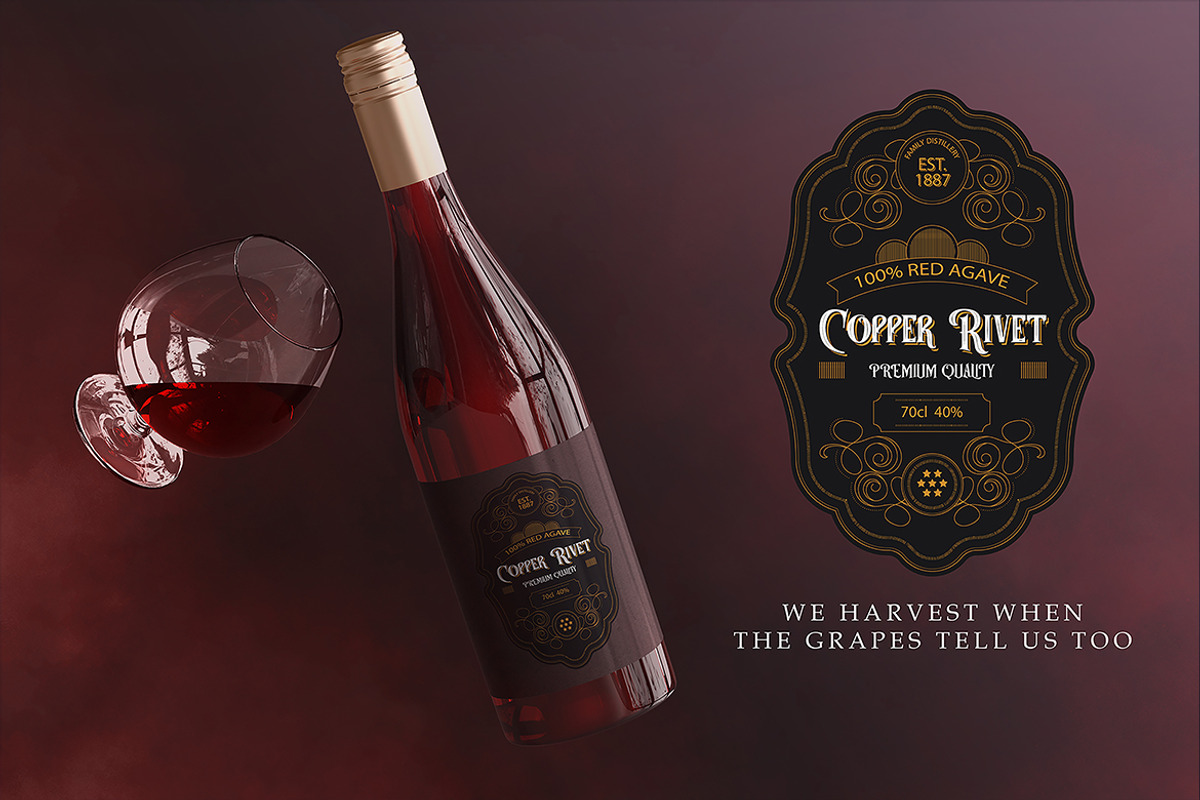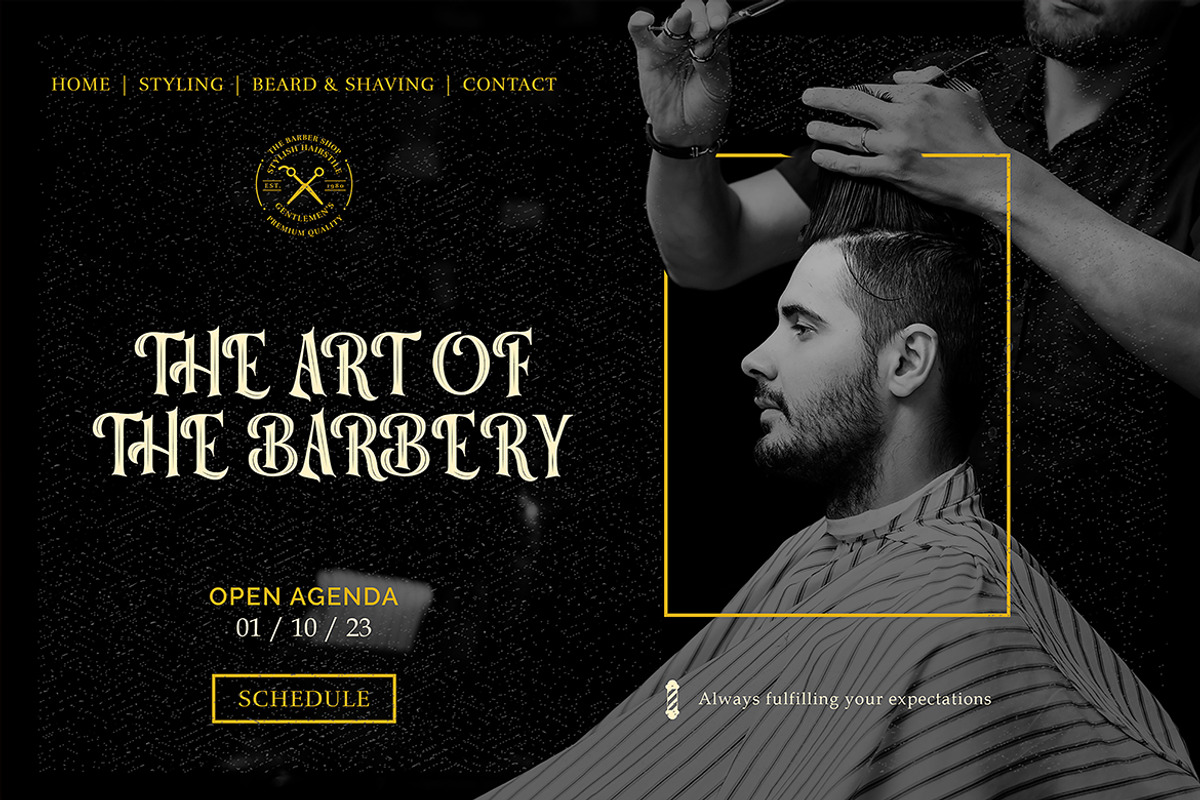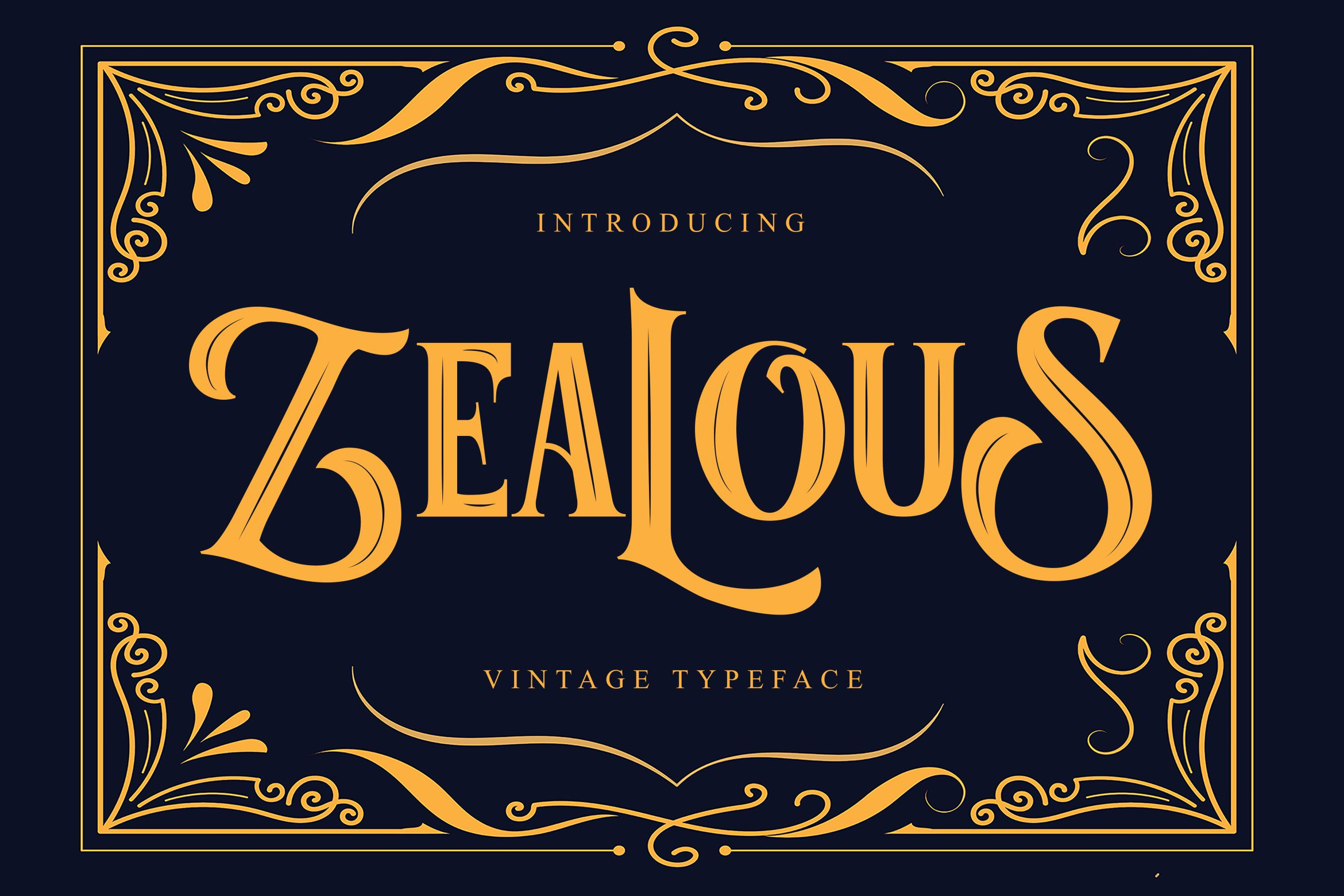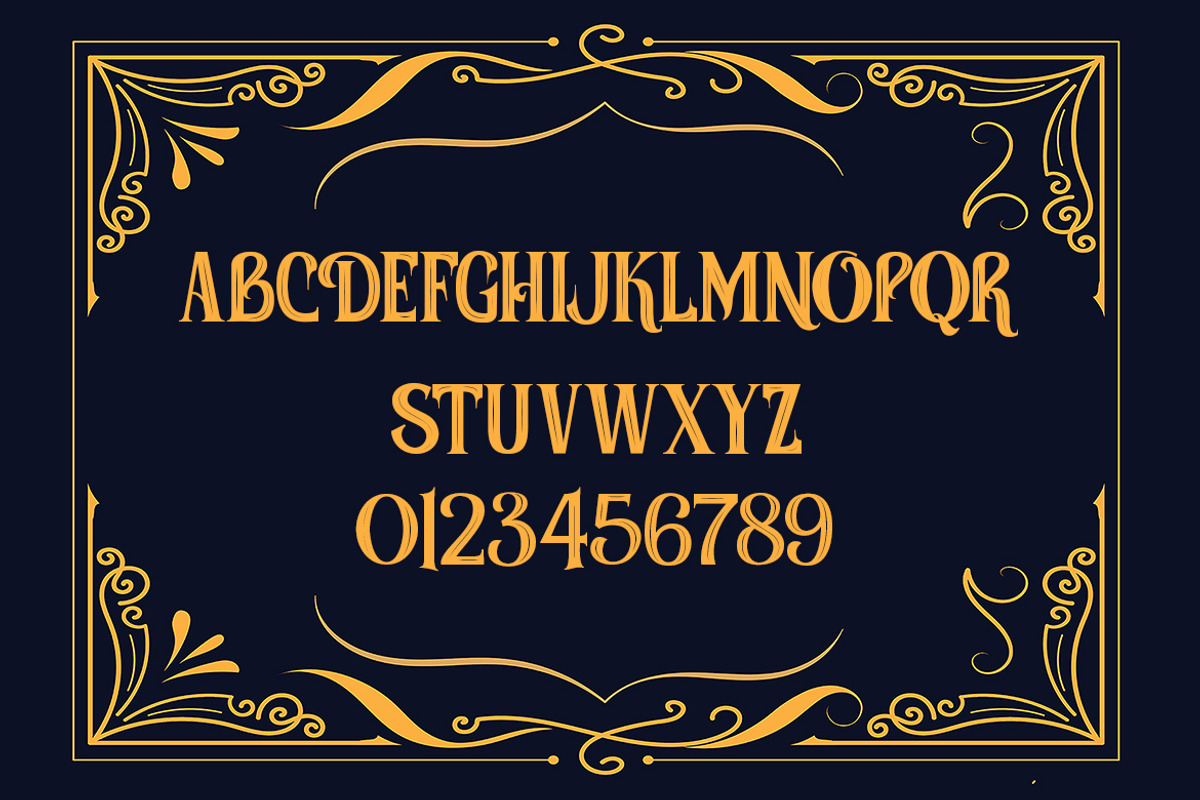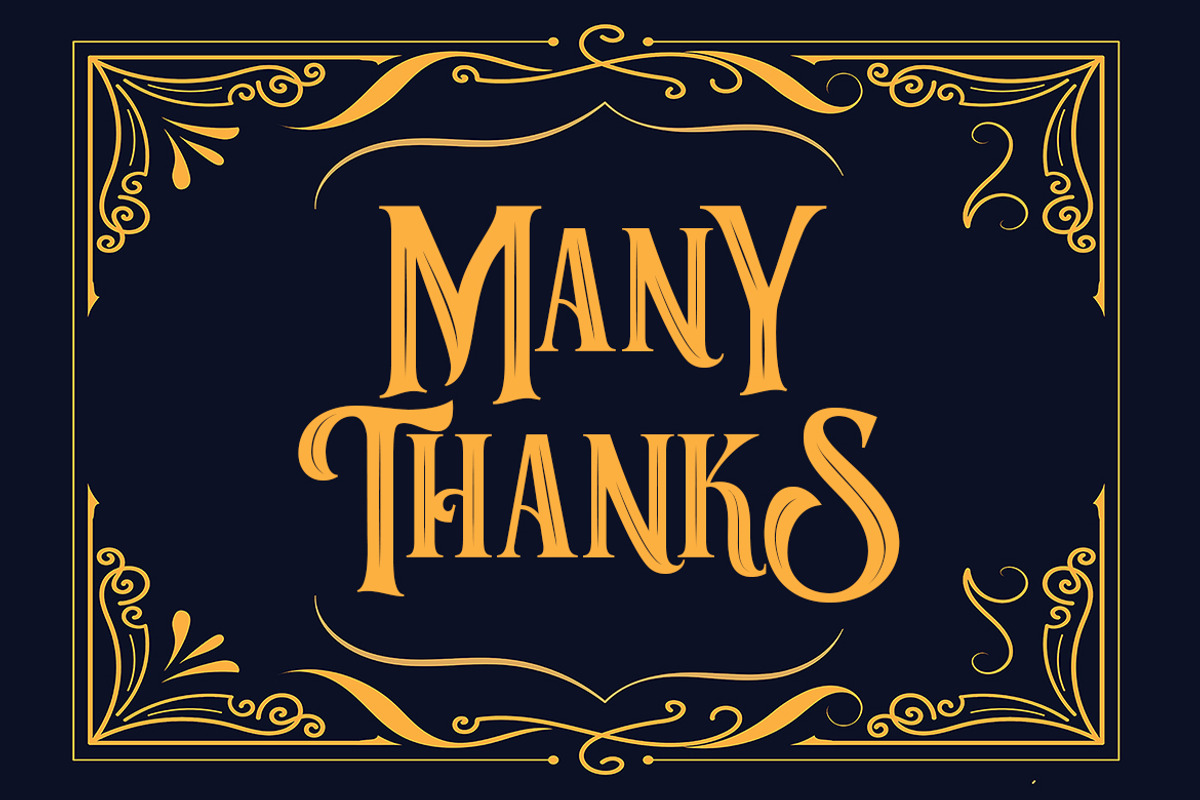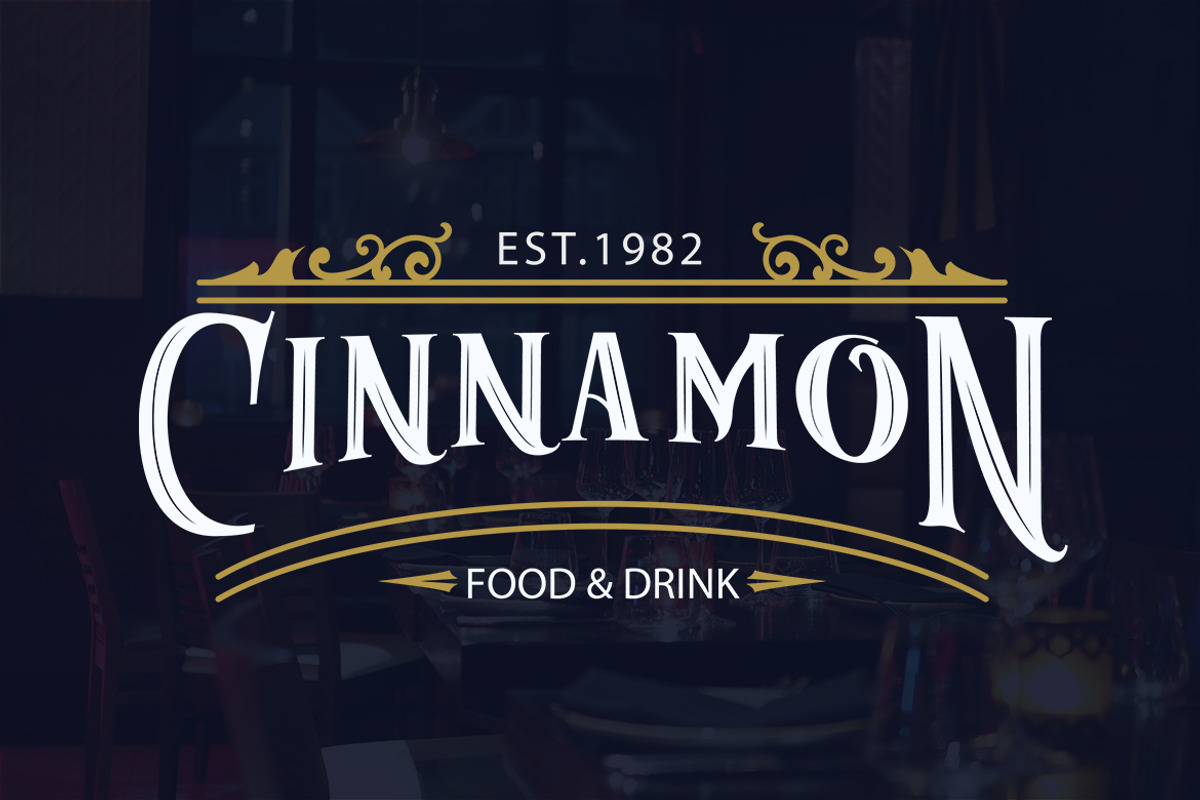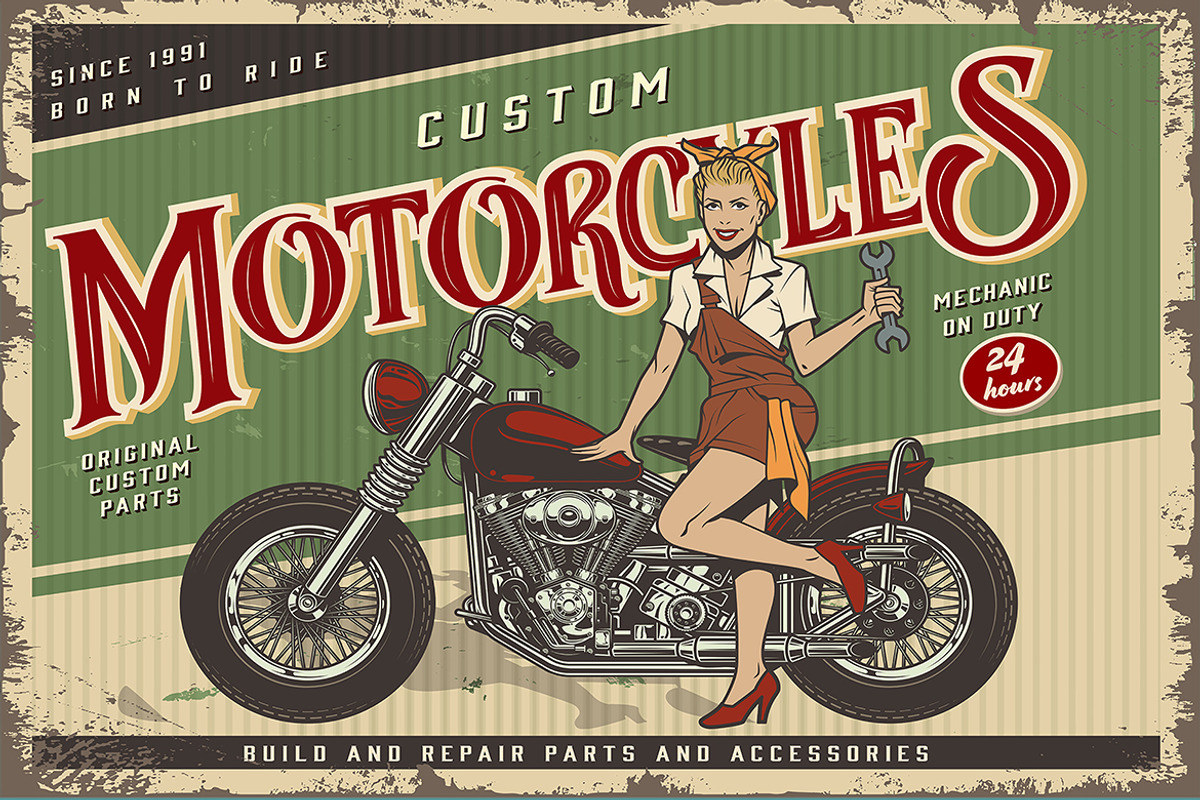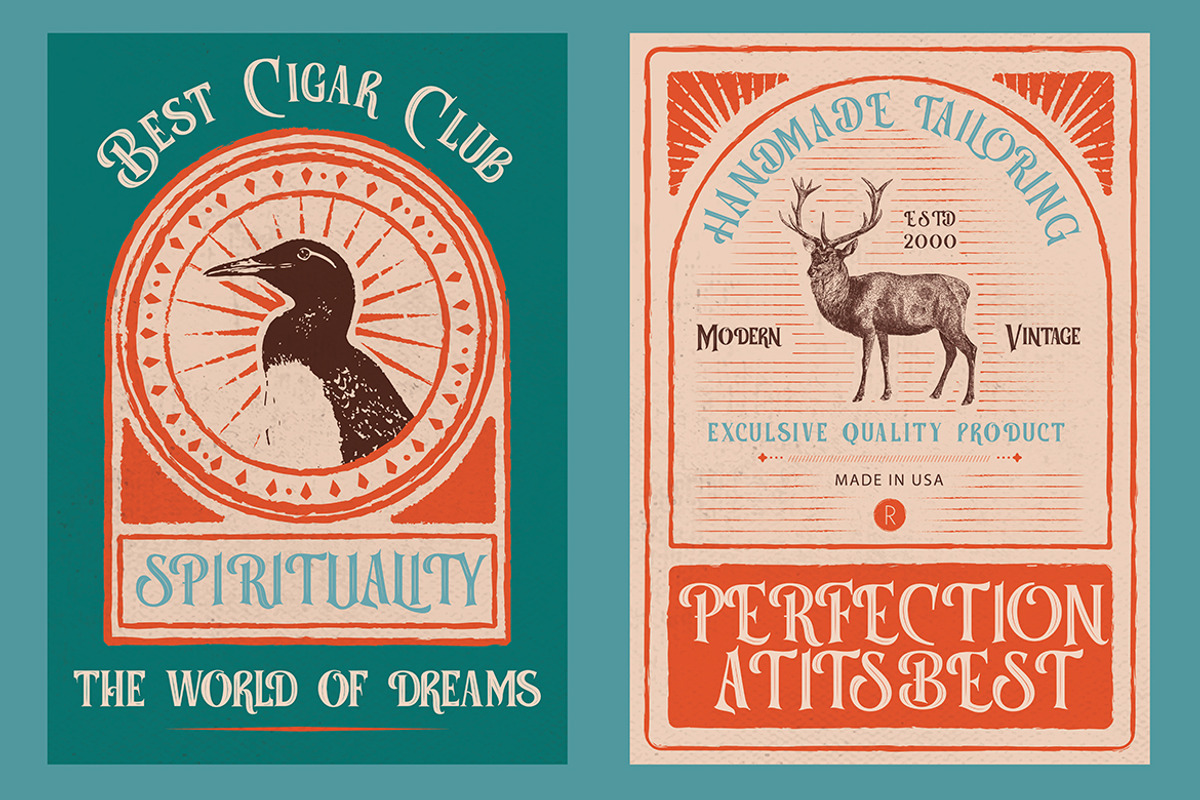
Zealous Font
Zealous Font is a set of upper & lowercase serif characters which includes a large range of punctuation glyphs, numerals, and multilingual support. A full set of stylistic alternates for lowercase characters are also available.
Available :
- Italic